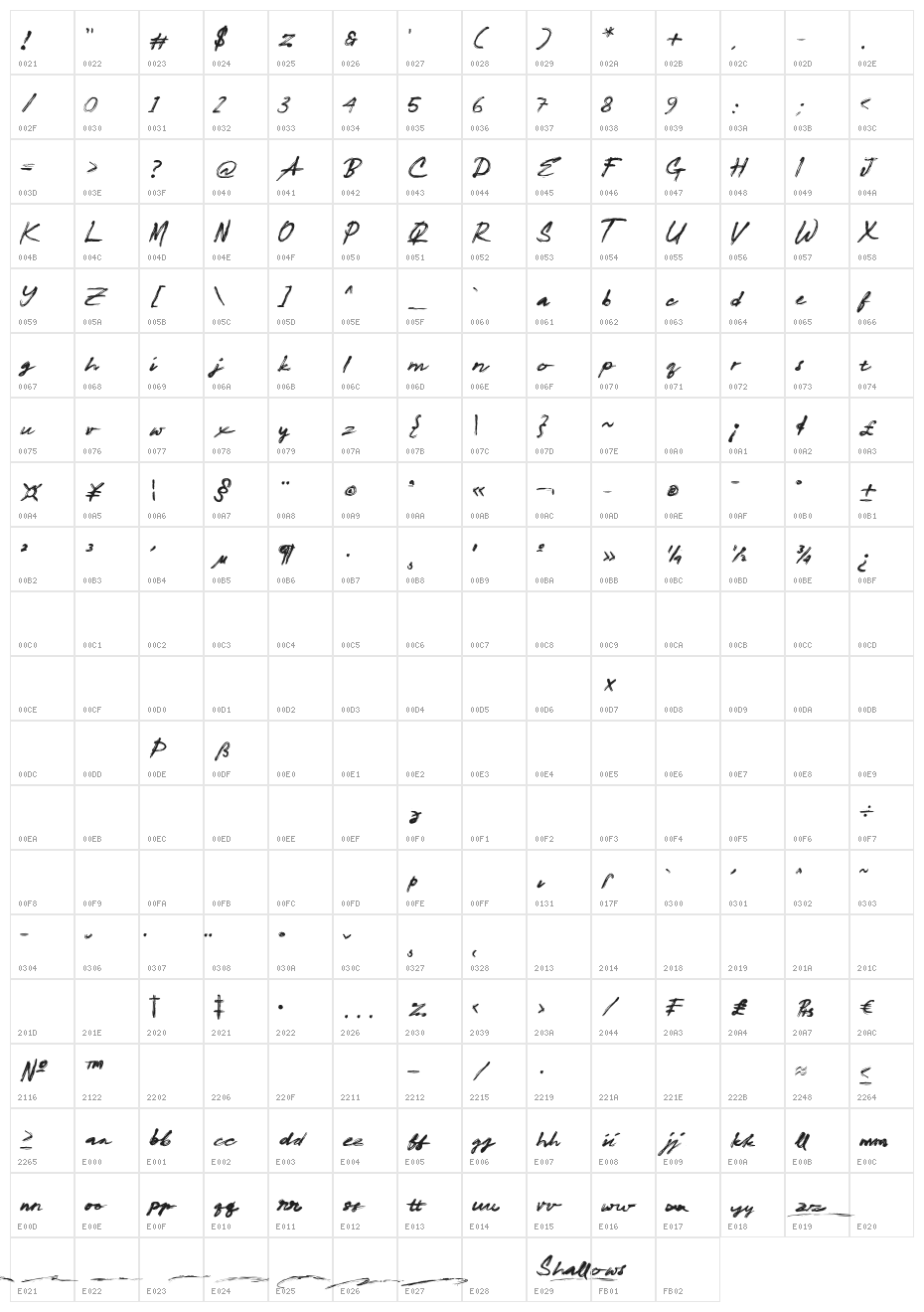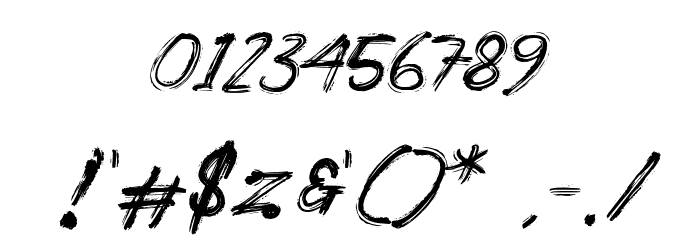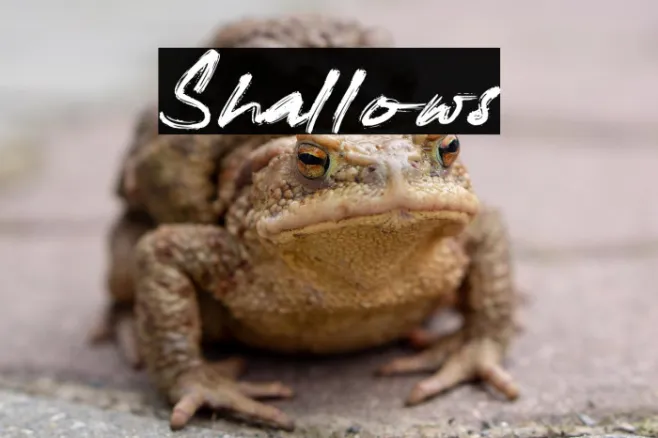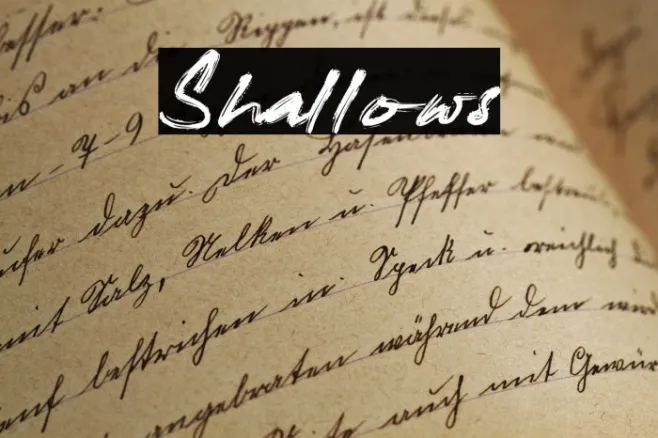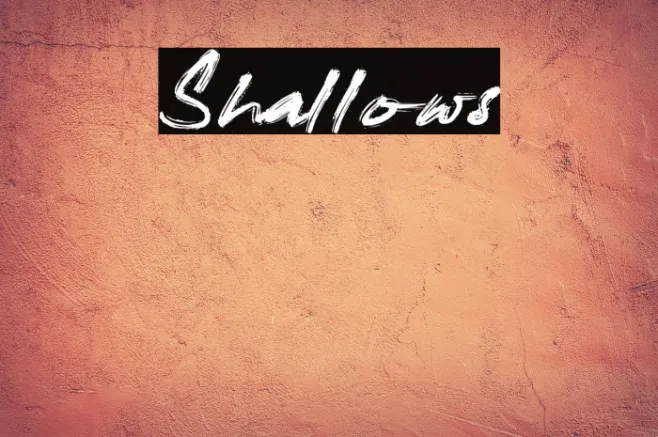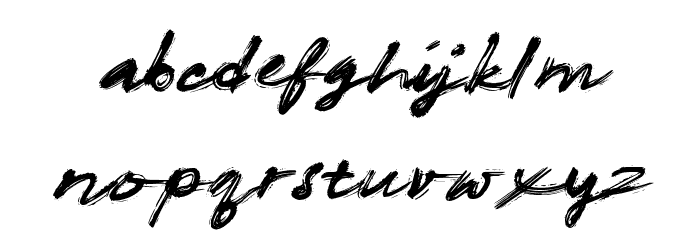
Shallows Font
Shallows Description
This font exhibits a dynamic and expressive style, characterized by its brush-like strokes and energetic appearance. The uppercase letters are bold and slightly slanted, giving a sense of movement and fluidity. The lowercase letters maintain this energetic style, with some letters featuring unique, artistic flourishes. The numbers and special characters are consistent with the overall brush script aesthetic, adding to the cohesive look. This font is ideal for projects that require a personal, handwritten touch, such as invitations, posters, or branding materials that aim to convey creativity and spontaneity.
| Use Case | Logos, Headlines |
| Proposed Projects | Ideal for creative projects like invitations, posters, and branding materials. |